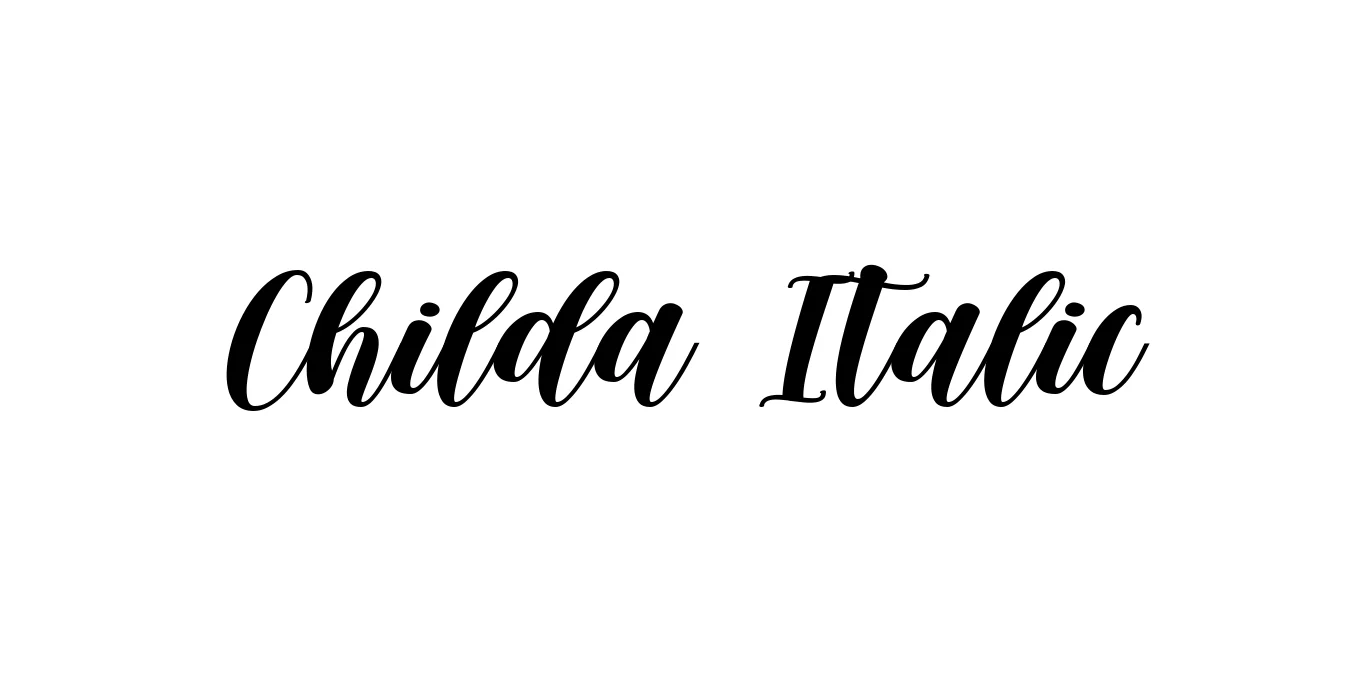
Childa Italic
Designed by Maulana Creative
Childa Italic is a refined and stylish script typeface that embodies the essence of modern handwriting. It features fluid, organic strokes and a distinct rhythmic slant that creates a sense of elegance and sophistication. The font is meticulously crafted to ensure each character flows seamlessly into the next, providing a natural, handwritten feel that is perfect for projects requiring a personal and artisanal touch.
The versatility of Childa Italic makes it an excellent choice for a wide variety of high-end design applications. From luxury branding and logo design to wedding stationery and editorial layouts, its expressive nature adds depth and character to any medium. It strikes a unique balance between classic calligraphy and contemporary digital design, ensuring high legibility even in complex decorative settings.
Childa Italic Best Uses
Excellent for luxury logos and personal branding requiring a signature aesthetic.
Ideal for elegant wedding invitations, greeting cards, and formal event announcements.
Perfect for pull quotes and decorative headers in magazines or fashion blogs.
Adds a sophisticated and personal touch to Instagram quotes and creative posts.